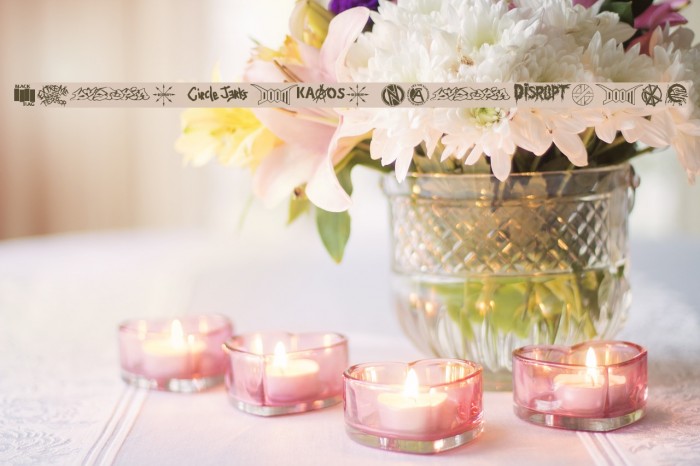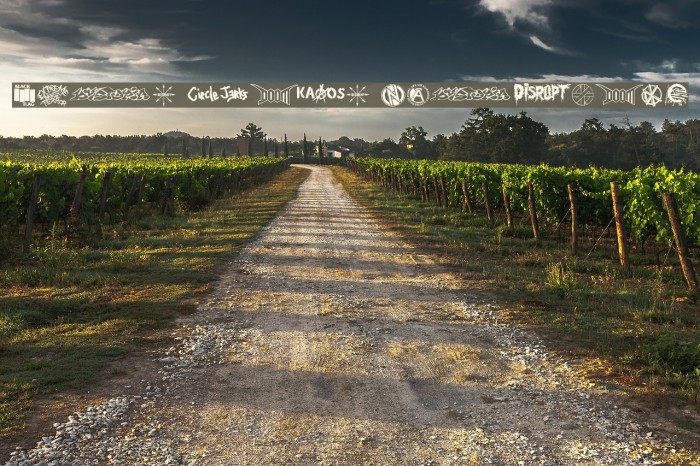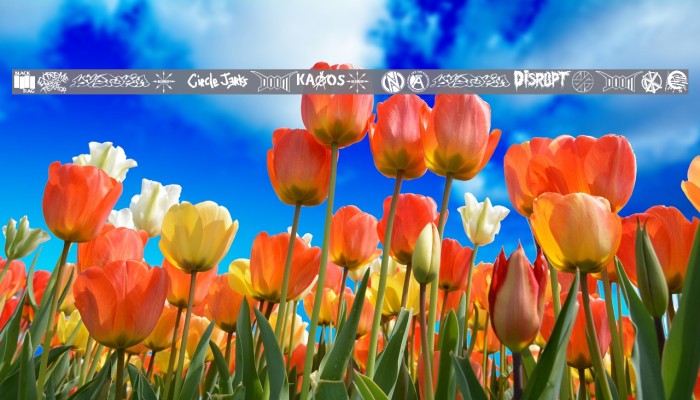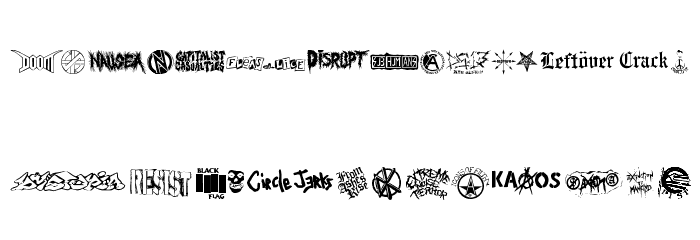
punk rawk dingbatz Font
punk rawk dingbatz Description
A highly decorative and eclectic dingbat set featuring punk band logos, anarchist symbols, and rebellious iconography, rendered in a variety of distressed, hand-drawn, and graffiti-inspired styles. Each glyph is unique, mimicking the look of band logos and underground zine graphics rather than traditional letterforms.
A punk-themed dingbat collection with band logos and anarchist symbols from Dingbats fonts.
- Proposed Projects: Music posters, zines, album covers, DIY flyers, alternative event branding.
- Overall Style: Decorative, Punk, Grunge, Rebellious
- Use Case: Logos, Posters, Decorative elements